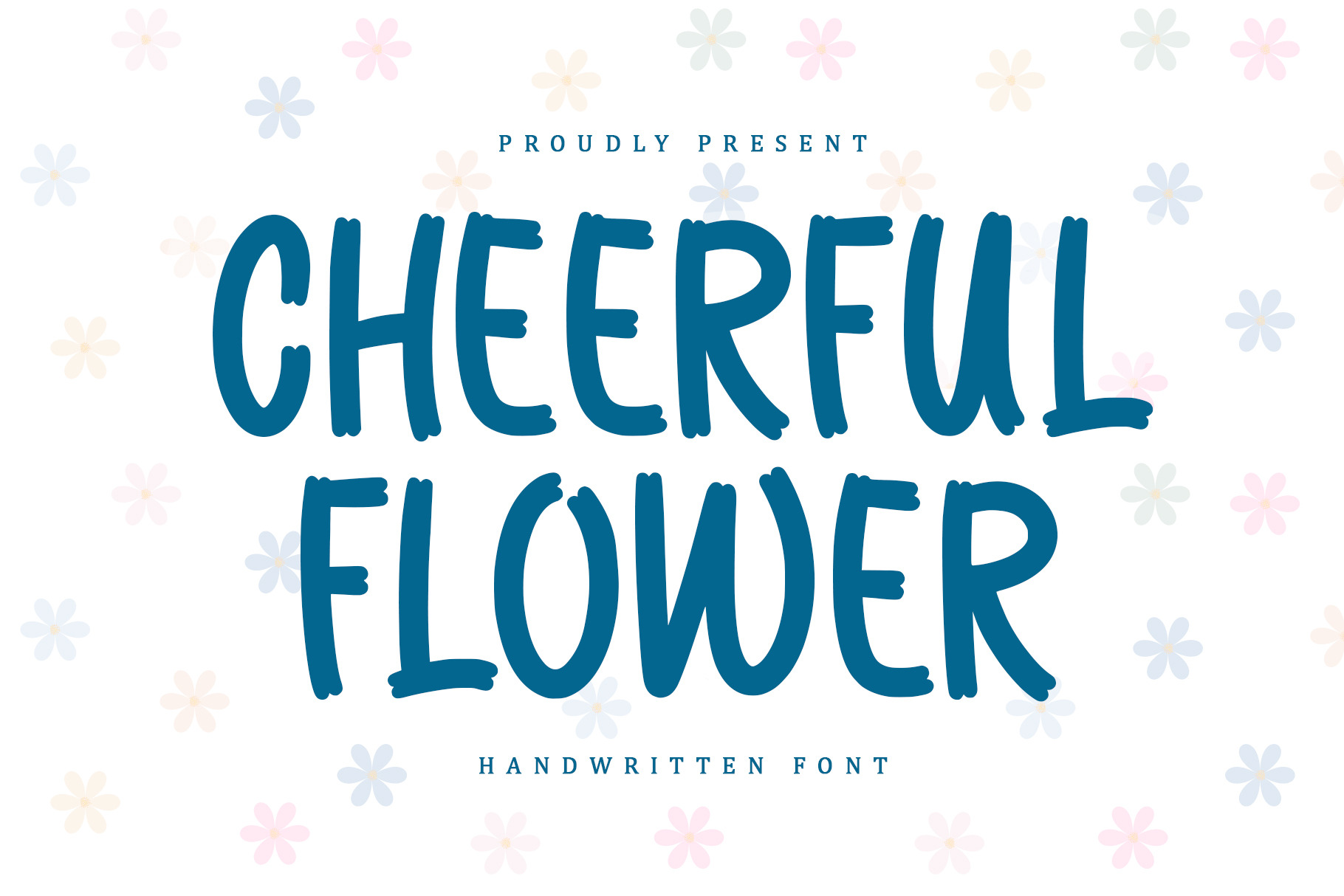
Cheerful Flower | Handwritten font
Cheerful Flower is a stylish and attractive display font that exudes confidence and sophistication. It’s bold lines and geometric shapes create a strong visual impact that is perfect for headlines, logos, and branding.